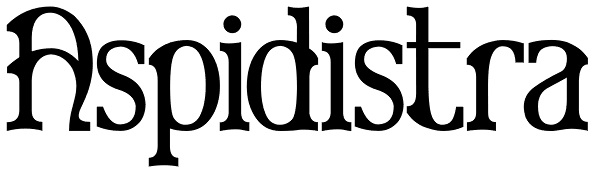
Aspidistra
Aspidistra is a modern vintage typeface; which is to say a Studio K original with a period feel: it has a strong Art Nouveau influence (a distant cousin of Arnold Bocklin). Why Aspidistra? In the first half of the last century an Aspidistra was a...
Aspidistra Italic
Aspidistra